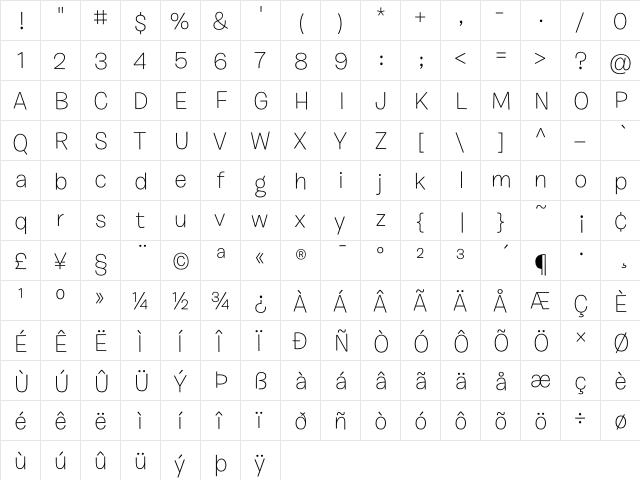
Burbank Small Light
| Foundry | House Industries |
| Designer | Tal Leming |
Design Context for Burbank Small Typeface
Burbank Small takes a measured approach to typography — its balanced proportions and neutral character make it a reliable workhorse for both digital and print work. The delicate stroke weight brings airiness and refinement to layouts.